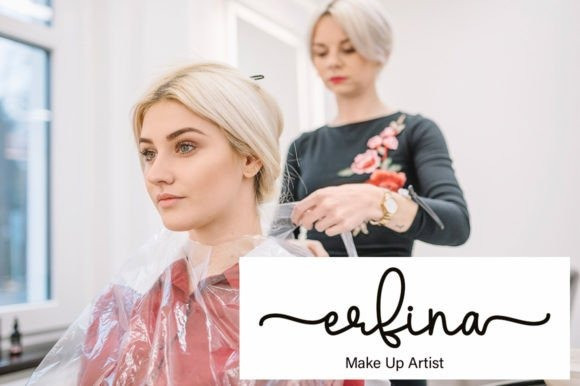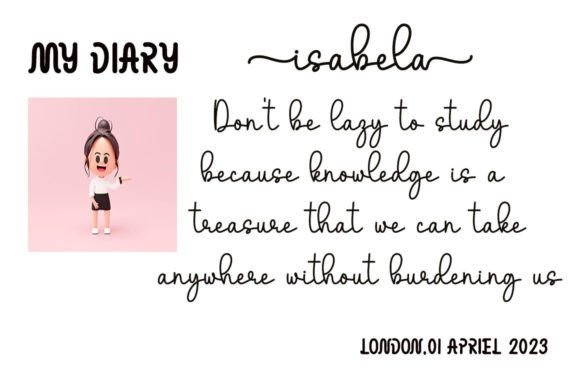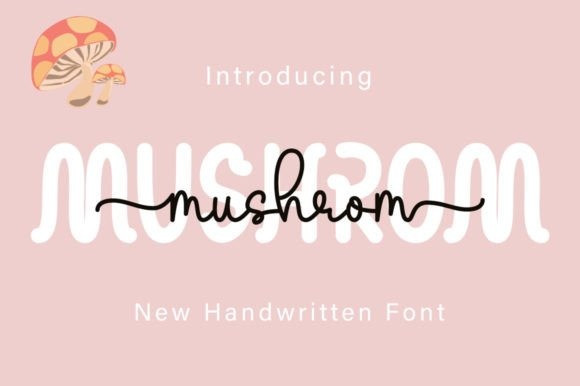
Mushrom Font
Mushrom Font is a stylish and delicate duo font (sans serif and script) suitable for a wide spectrum of applications. From greeting cards to headlines, this font will guarantee a romantic touch to each of your creations! Remember that the font is PUA encoded, meaning you can access all delightful glyphs and swashes effortlessly.